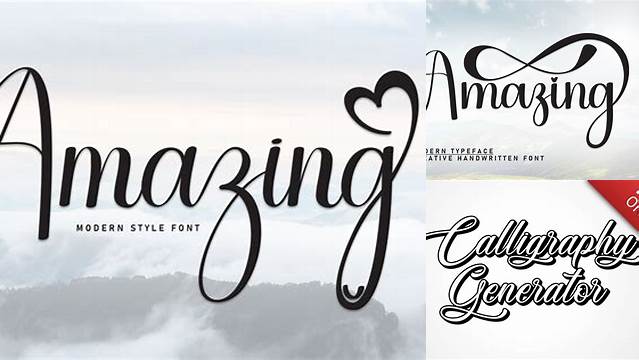
Fonts Lettering Generator: Create Amazing Text!
Hey guys! Ever wanted to make your text look super cool and unique? Well, you've come to the right place! We're diving deep into the world of fonts lettering generators, and trust me, it's a game-changer. Forget boring, standard fonts – we're talking about transforming your words into works of art! Whether you're designing a logo, creating social media graphics, or just want to spice up your personal projects, a fonts lettering generator is your new best friend. So, buckle up, and let's get started!
What is a Fonts Lettering Generator?
Okay, so what exactly is a fonts lettering generator? Simply put, it's a tool that allows you to create stylish and unique text designs. Instead of being limited to the same old fonts you see everywhere, these generators offer a huge range of styles, from elegant scripts to bold, futuristic designs. Think of it like having a personal typography artist at your fingertips! You can play around with different fonts, sizes, colors, and effects to get exactly the look you want. It's perfect for adding a personal touch to invitations, posters, website headers, and so much more. Plus, most of these generators are super user-friendly, so you don't need to be a design expert to get amazing results. You will explore how fonts lettering generators are different from traditional design software, highlighting their ease of use and accessibility for beginners. We will also discuss the common features offered by these generators, such as font customization options, text effects, and the ability to download designs in various formats.
Why Use a Fonts Lettering Generator?
Now, you might be thinking, "Why bother with a fonts lettering generator when I can just use regular fonts?" Well, there are tons of reasons! First off, it's a huge time-saver. Instead of spending hours searching for the perfect font and tweaking it in design software, you can create something awesome in minutes. Secondly, it opens up a world of creative possibilities. With so many different fonts and styles available, you can really let your imagination run wild. Whether you're going for a vintage vibe, a modern edge, or something totally unique, a fonts lettering generator has got you covered. And let's not forget the fun factor! It's seriously addictive playing around with different fonts and effects to see what you can create. This section will highlight the benefits of using a fonts lettering generator, such as time-saving, creative flexibility, and the ability to create unique designs. We will also discuss the specific use cases where a fonts lettering generator can be particularly helpful, such as logo design, social media graphics, and personal projects.
Exploring Different Types of Fonts
Let's talk fonts, guys! There's a whole universe of different font styles out there, and a good fonts lettering generator will give you access to a ton of them. We're talking everything from elegant serif fonts that are perfect for formal occasions to playful sans-serif fonts that are great for casual designs. And then there are script fonts, which mimic handwriting and add a personal touch, and display fonts, which are bold and attention-grabbing. Understanding the different types of fonts is key to creating designs that look amazing. You don't want to use a Comic Sans for a wedding invitation, do you? This section will provide an overview of different font styles, such as serif, sans-serif, script, and display fonts. We will also discuss the characteristics of each font style and the best use cases for each.
Serif Fonts: Classic and Elegant
Serif fonts are the OGs of the font world. They're characterized by the little strokes or "feet" at the end of each letter, and they have a classic, elegant vibe. Think of fonts like Times New Roman or Georgia – those are serif fonts. They're perfect for formal documents, books, and anything where you want to convey a sense of tradition and sophistication. When you use a fonts lettering generator, you'll often find a wide selection of serif fonts to choose from. Some are more traditional, while others have a modern twist, but they all share that timeless appeal. This section will delve into the world of serif fonts, discussing their history, characteristics, and common uses. We will also highlight some popular serif fonts and provide examples of how they can be used effectively in design.
Sans-Serif Fonts: Modern and Clean
If serif fonts are the classics, sans-serif fonts are the modern rebels. Sans-serif fonts don't have those little strokes at the end of the letters, giving them a clean, minimalist look. Think Arial, Helvetica, or Open Sans. These fonts are super versatile and work well for everything from websites to brochures. When you're using a fonts lettering generator, you'll find that sans-serif fonts are a great choice for designs that need to be easy to read and have a contemporary feel. They're also perfect for logos and branding materials. This section will explore sans-serif fonts, their modern aesthetic, and their suitability for various design purposes. We will discuss the differences between serif and sans-serif fonts and provide tips on when to use each type.
Script Fonts: Stylish and Personal
Want to add a touch of personality to your designs? Script fonts are the way to go! These fonts mimic handwriting and come in all sorts of styles, from elegant calligraphy to playful brushstrokes. They're perfect for invitations, cards, and anything where you want to create a personal connection. A fonts lettering generator can be a goldmine for script fonts, offering everything from formal scripts to more casual handwriting styles. Just be careful not to overuse them, as they can be harder to read in large blocks of text. This section will focus on script fonts, their elegant and personal touch, and their common use in invitations and cards. We will also provide guidelines on how to use script fonts effectively without compromising readability.
Display Fonts: Bold and Eye-Catching
Need to grab attention? Display fonts are your secret weapon! These fonts are designed to be bold and eye-catching, making them perfect for headlines, posters, and logos. They come in all sorts of crazy styles, from futuristic designs to vintage-inspired lettering. When you're using a fonts lettering generator, display fonts can really help your designs stand out from the crowd. Just remember to use them sparingly, as they can be overwhelming if used too much. This section will highlight display fonts, their bold and eye-catching nature, and their best uses in headlines and logos. We will also provide tips on how to choose the right display font for your design and how to balance it with other fonts.
Top Fonts Lettering Generators Online
Okay, so you're convinced that a fonts lettering generator is awesome, but where do you find one? Luckily, the internet is packed with amazing tools that can help you create stunning text designs. Some are free, some are paid, but they all offer a range of features and fonts to play with. We're going to take a look at some of the top fonts lettering generators online, highlighting their strengths and weaknesses so you can find the perfect one for your needs. This section will review some of the top fonts lettering generators available online, highlighting their features, pricing, and user-friendliness. We will also provide recommendations based on different design needs and budgets.
Free Fonts Lettering Generators
Who doesn't love free stuff? There are plenty of amazing fonts lettering generators out there that won't cost you a penny. These tools are perfect for beginners or anyone who wants to experiment without committing to a paid subscription. While free generators might have fewer features and fonts than paid ones, they can still produce some seriously impressive results. We'll explore some of the best free options and show you what they can do. This section will specifically focus on free fonts lettering generators, discussing their features, limitations, and best use cases. We will also provide tips on how to get the most out of free generators and where to find additional free resources.
So, there you have it, guys! A deep dive into the amazing world of fonts lettering generators. Whether you're a design pro or just starting out, these tools can help you create text designs that are truly unique and eye-catching. Now go forth and create something awesome!